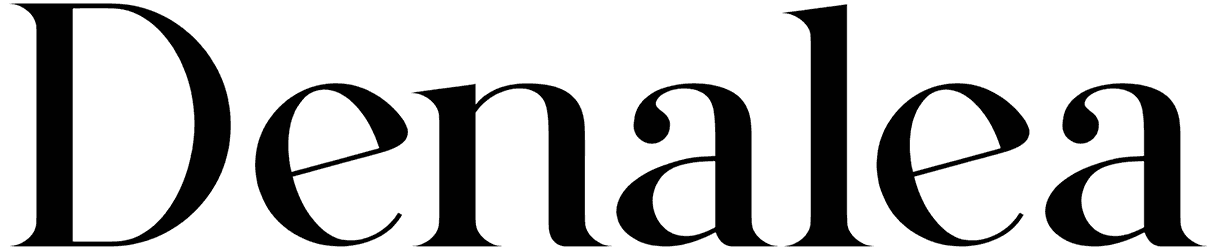
Denalea Font
Denalea font has that modern serif elegance designers reach for when a layout needs to look calm, polished, and a little expensive. Its classy letter shapes feel fashion-forward without becoming stiff, which makes it perfect for headlines that need confidence with a soft editorial finish. You get that boutique-brand mood right away.
Use this serif font for beauty logos, magazine titles, wedding stationery, perfume packaging, jewelry branding, or Instagram templates with a refined visual voice. Pair Denalea font with warm neutrals, close-up product shots, thin line art, and generous spacing, and your design suddenly feels ready for a premium launch.